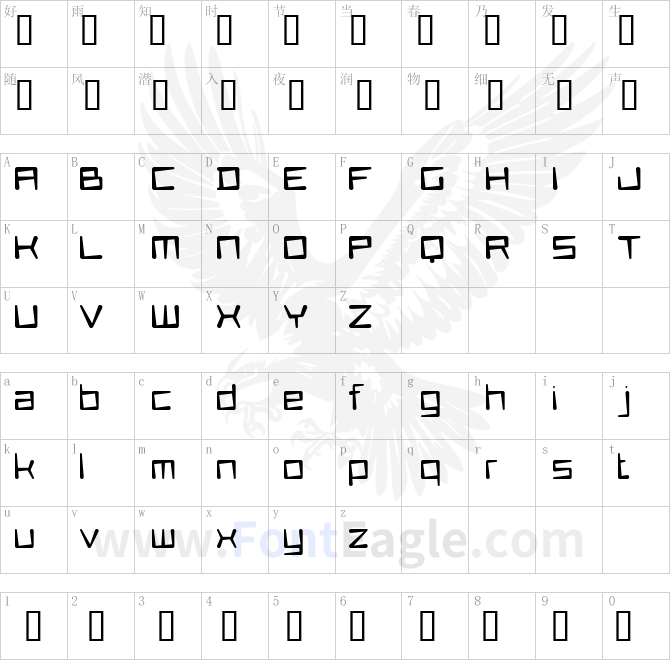
- Font name:Flotsam Coming Up
- Font Subfamily ID:Macromedia Fontographer 4.1.5 Flotsam Coming Up
- Font Full Name:Flotsam Coming Up
- Font Version:Macromedia Fontographer 4.1.5 27/8/56
- Postscript:FlotsamComingUp
- Font Copyright:Copyright © A Flotsam Creation 1994.